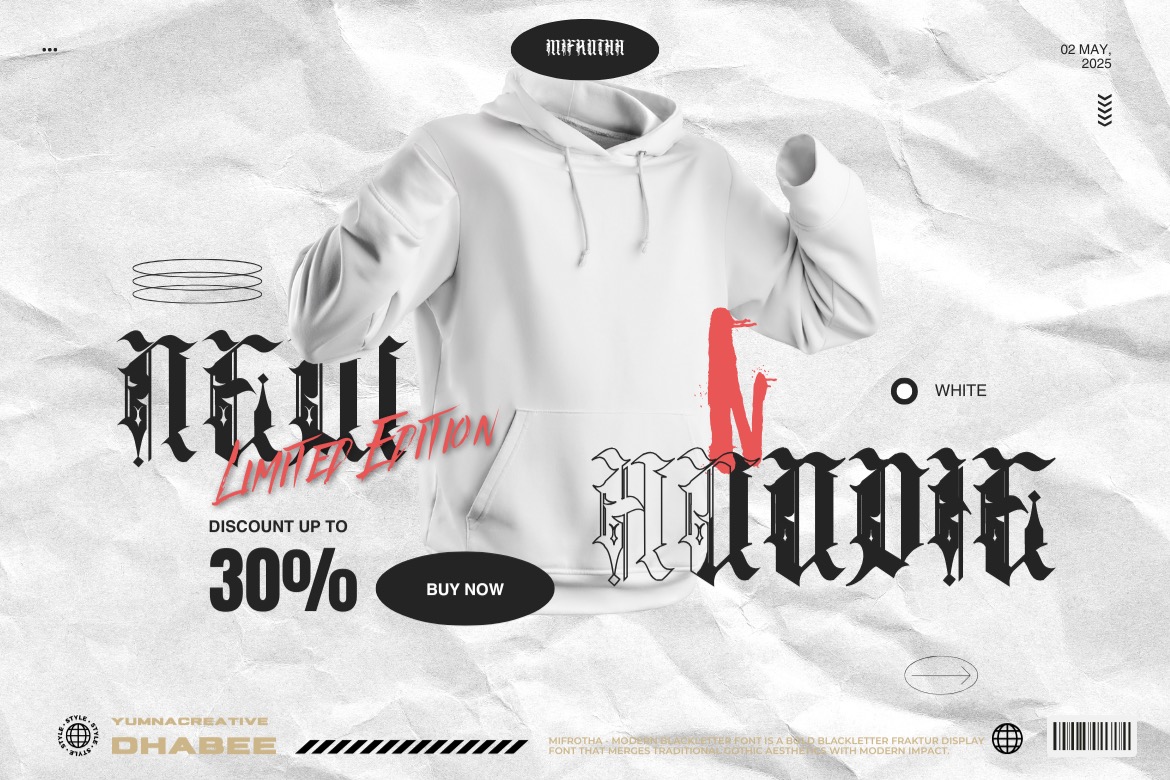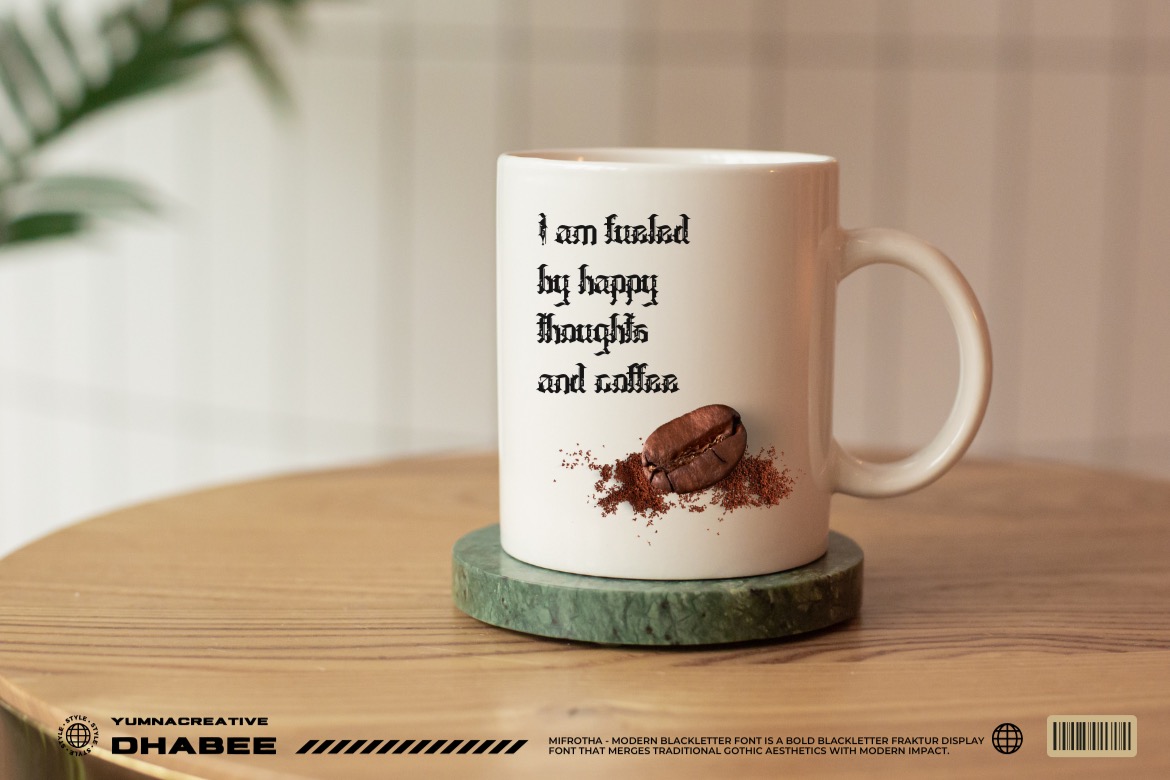
Mifrotha channels the spirit of historic Gothic lettering—echoing the blackletter traditions seen in medieval manuscripts, old-world proclamations, and heritage signage. Its forms feel carved and ceremonial, immediately establishing a sense of lineage and gravity before you even read the word.
The typeface carries a strong classic-and-heritage impression through bold vertical stems, fractured angles, and crisp ornamental cuts that recall traditional Fraktur craftsmanship. Each letter looks intentionally “forged,” giving the font a handcrafted presence—like something stamped, engraved, or printed with pride—rather than simply typed. That artisanal character naturally suggests legacy: family crests, historic institutions, vintage labels, and cultural artifacts where authenticity matters. In display settings, Mifrotha projects authority and prestige with ease; the sharp silhouettes and structured rhythm create a commanding tone that feels official, elevated, and unmistakably confident.
Even with its historical roots, Mifrotha remains highly relevant in modern design—especially for branding that wants heritage with impact: streetwear and merch graphics, album or poster titles, premium packaging, café/retail signage, badges, and editorial headlines that need a bold, prestigious voice. License note: free for personal use only—commercial use requires the appropriate license.